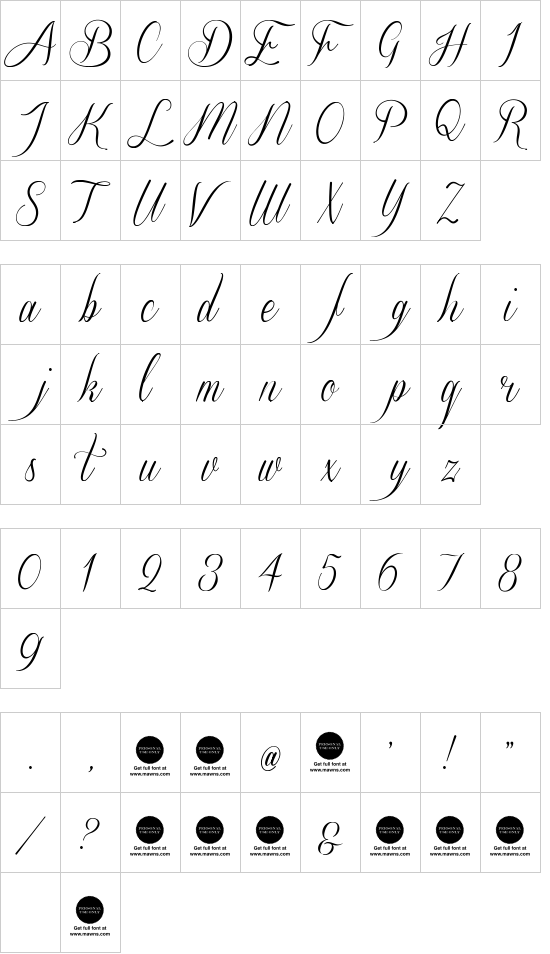
Sverige Script is a graceful calligraphic font with smooth flowing connections and decorative tails that trail off lightly at the ends. The strokes show a pleasant contrast and the loops stay open, giving the writing an airy elegance with a subtle tattoo-friendly edge.
That look suits wedding stationery, jewelry branding, romantic posters, and signature-style logos. Sverige Script is free to download as a TrueType file, and you can run your own wording through the preview to see how the flowing tails connect before you use it.